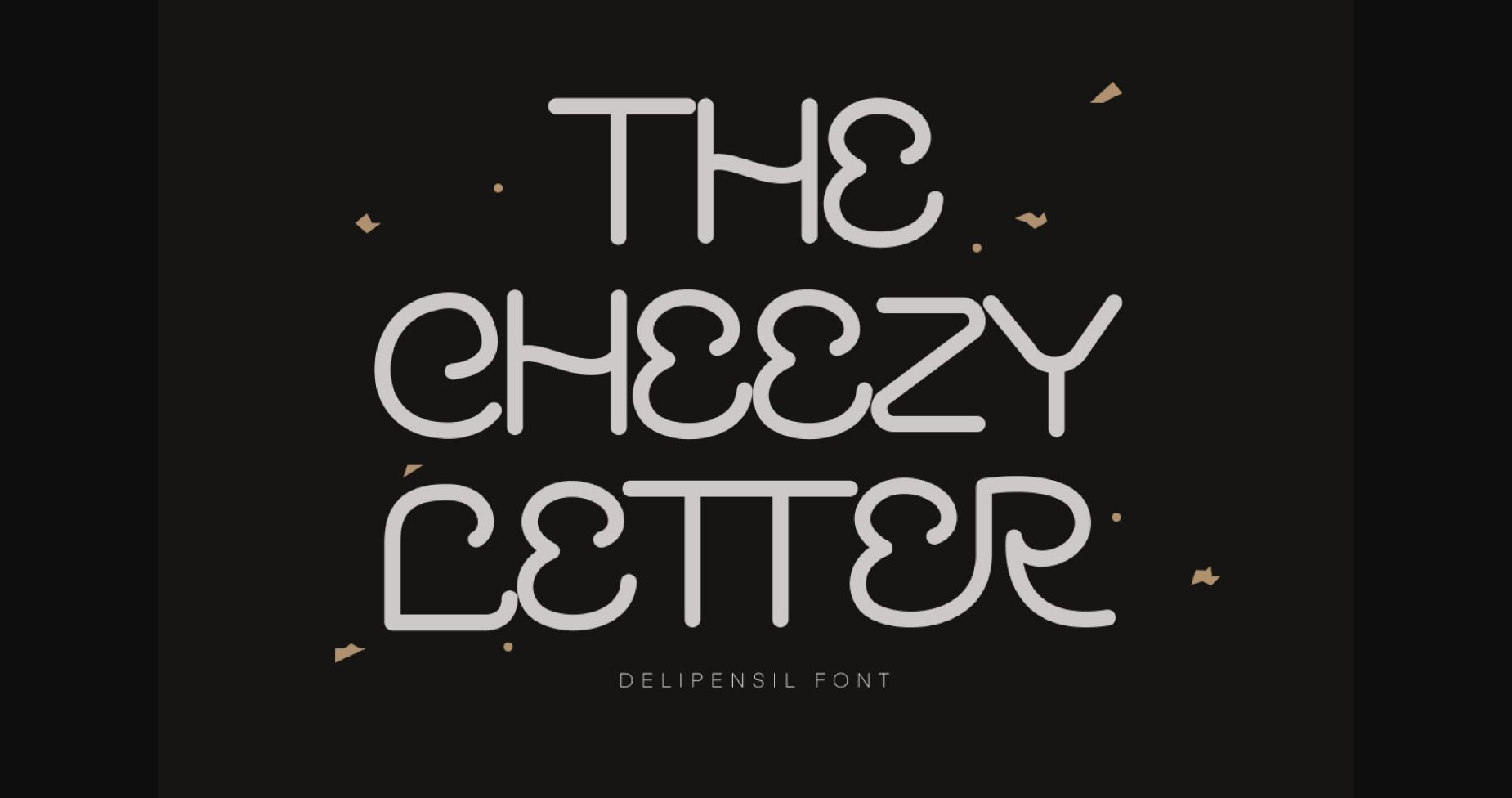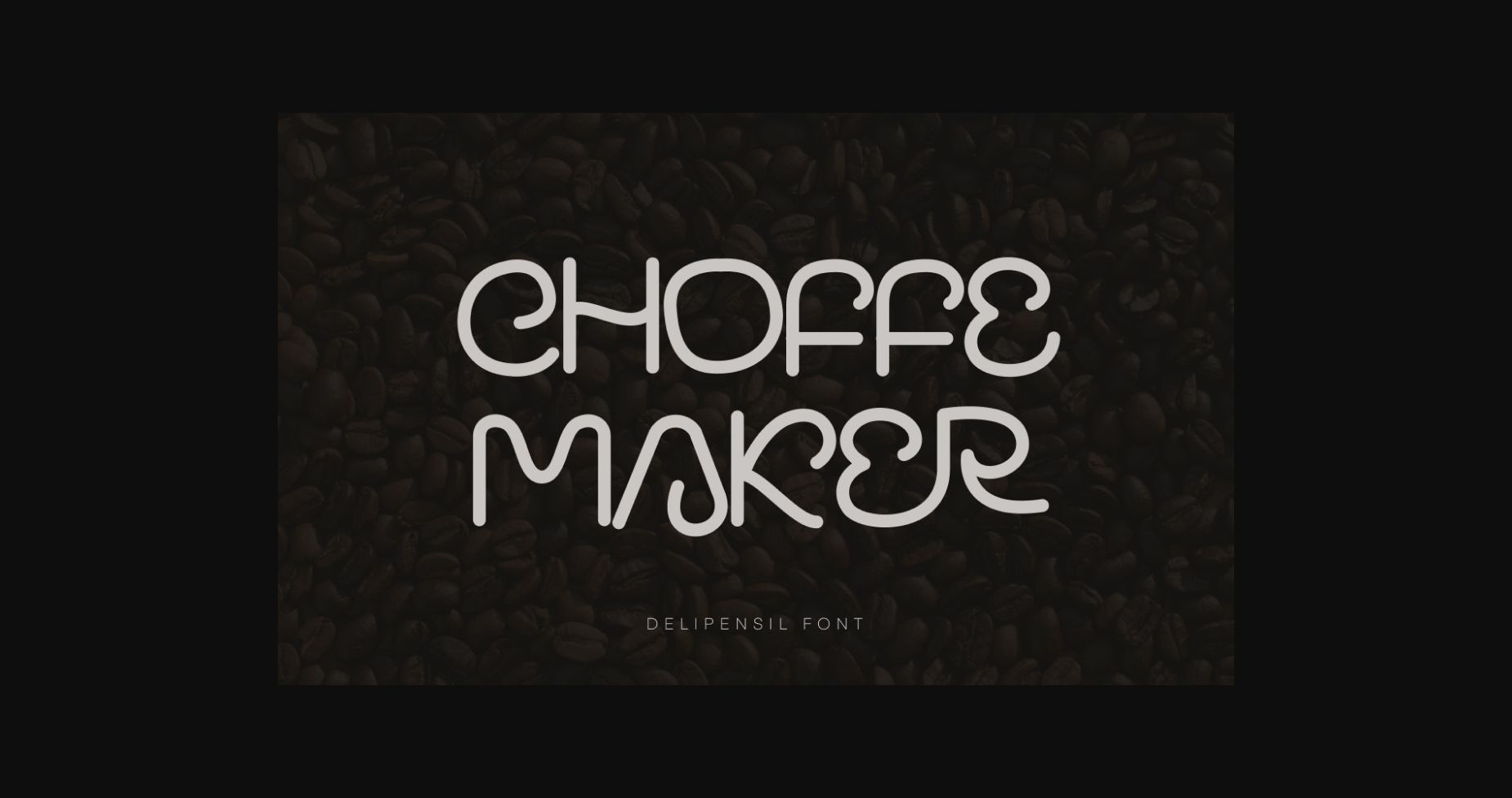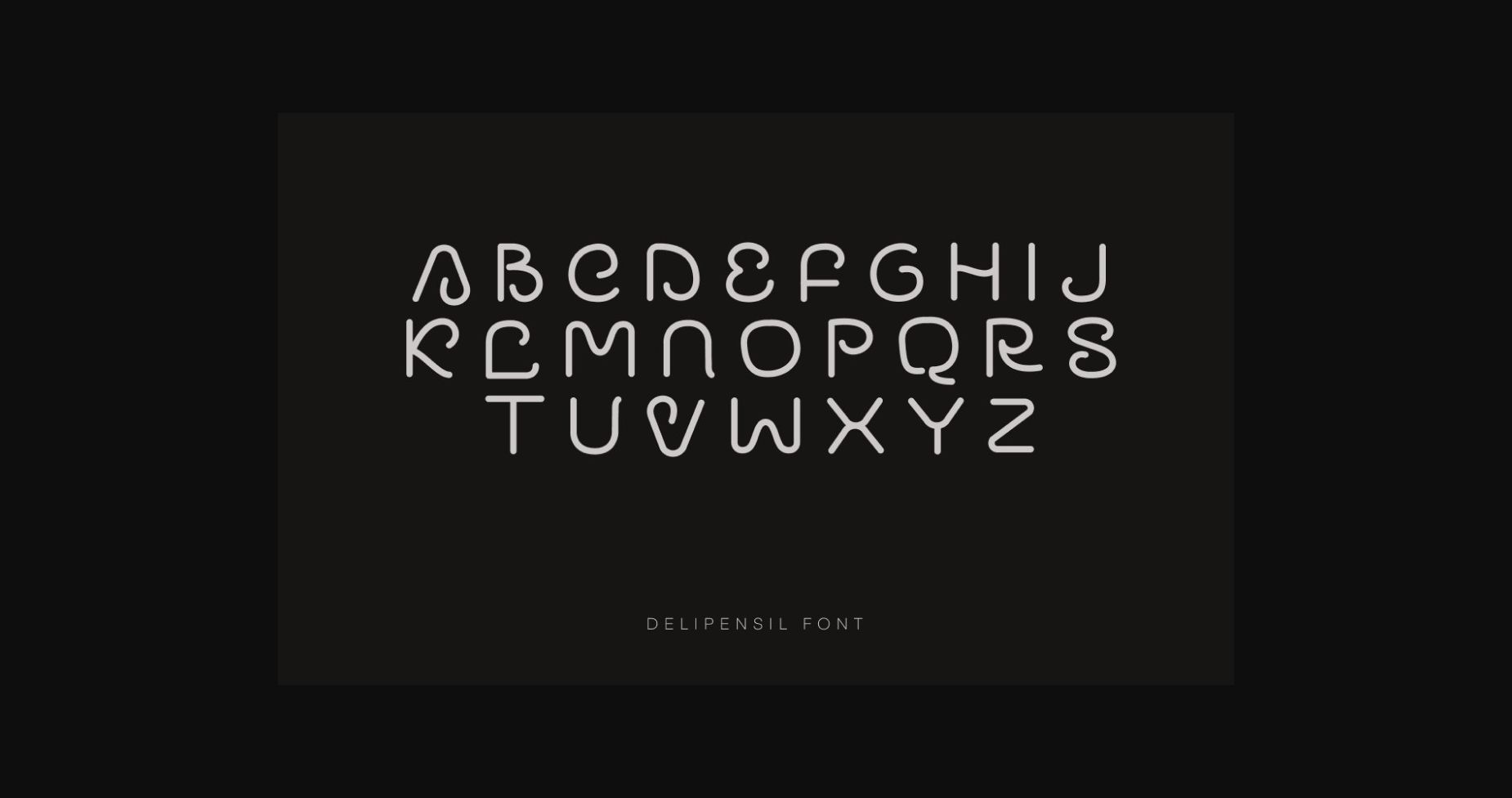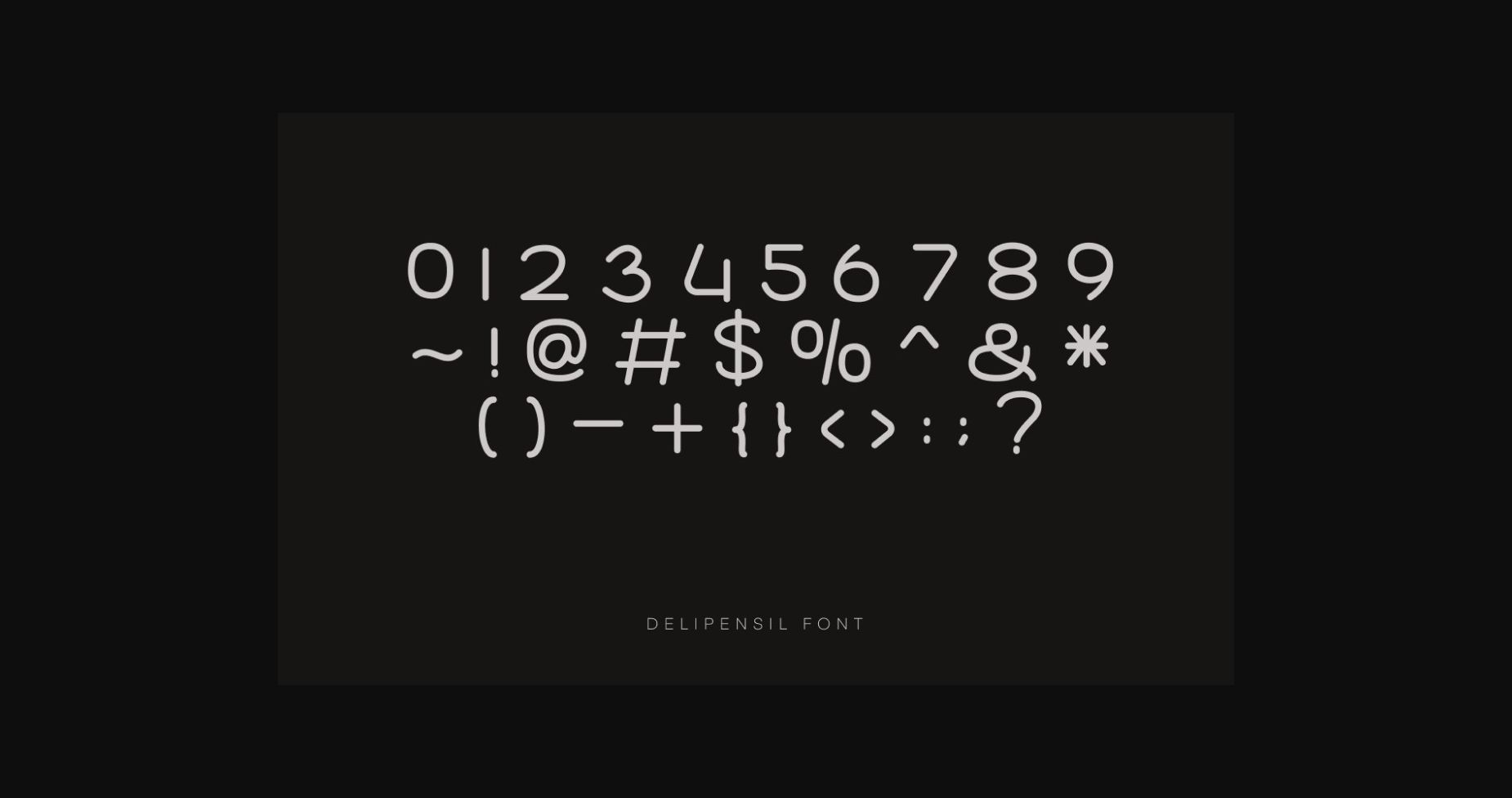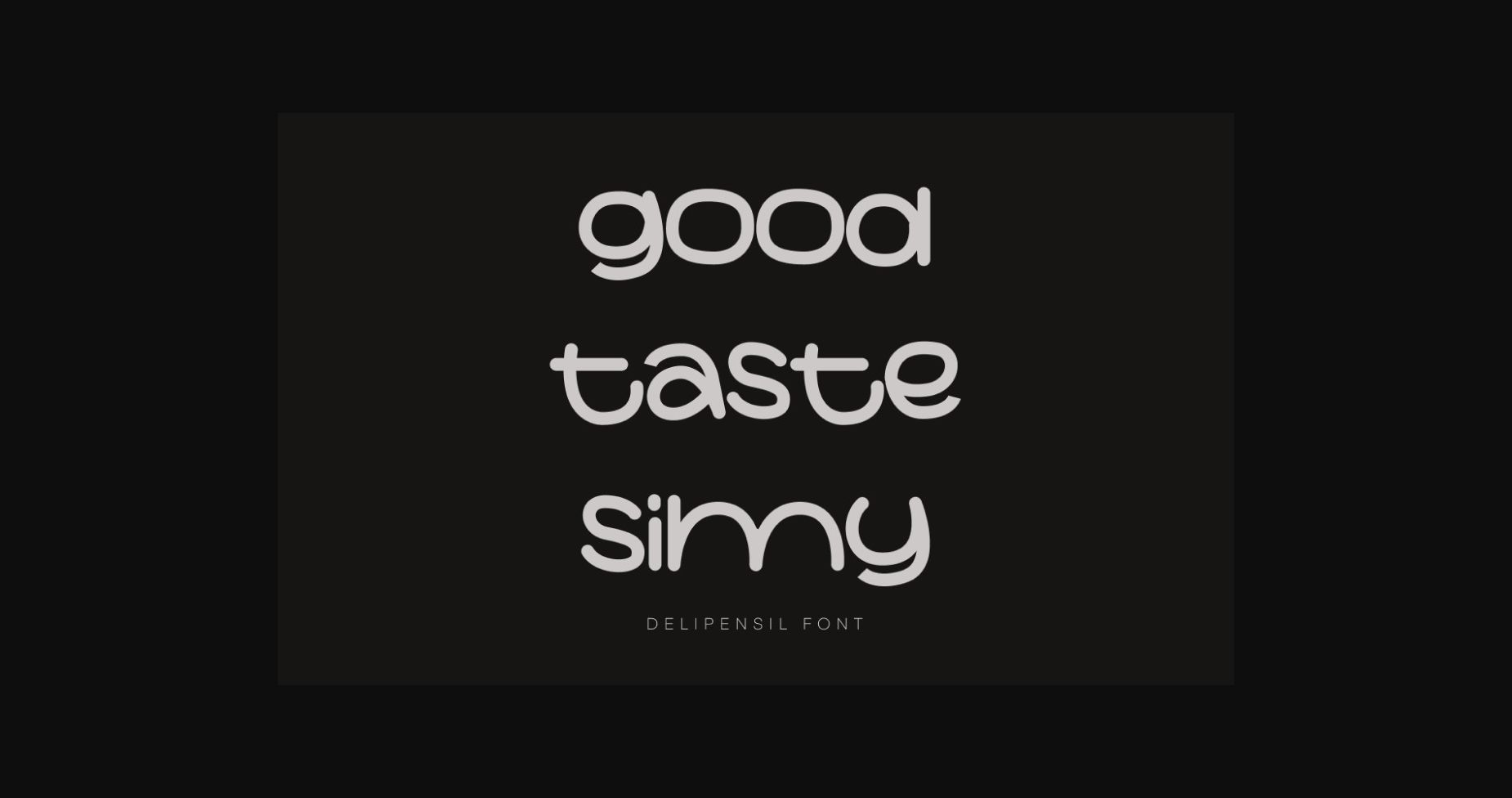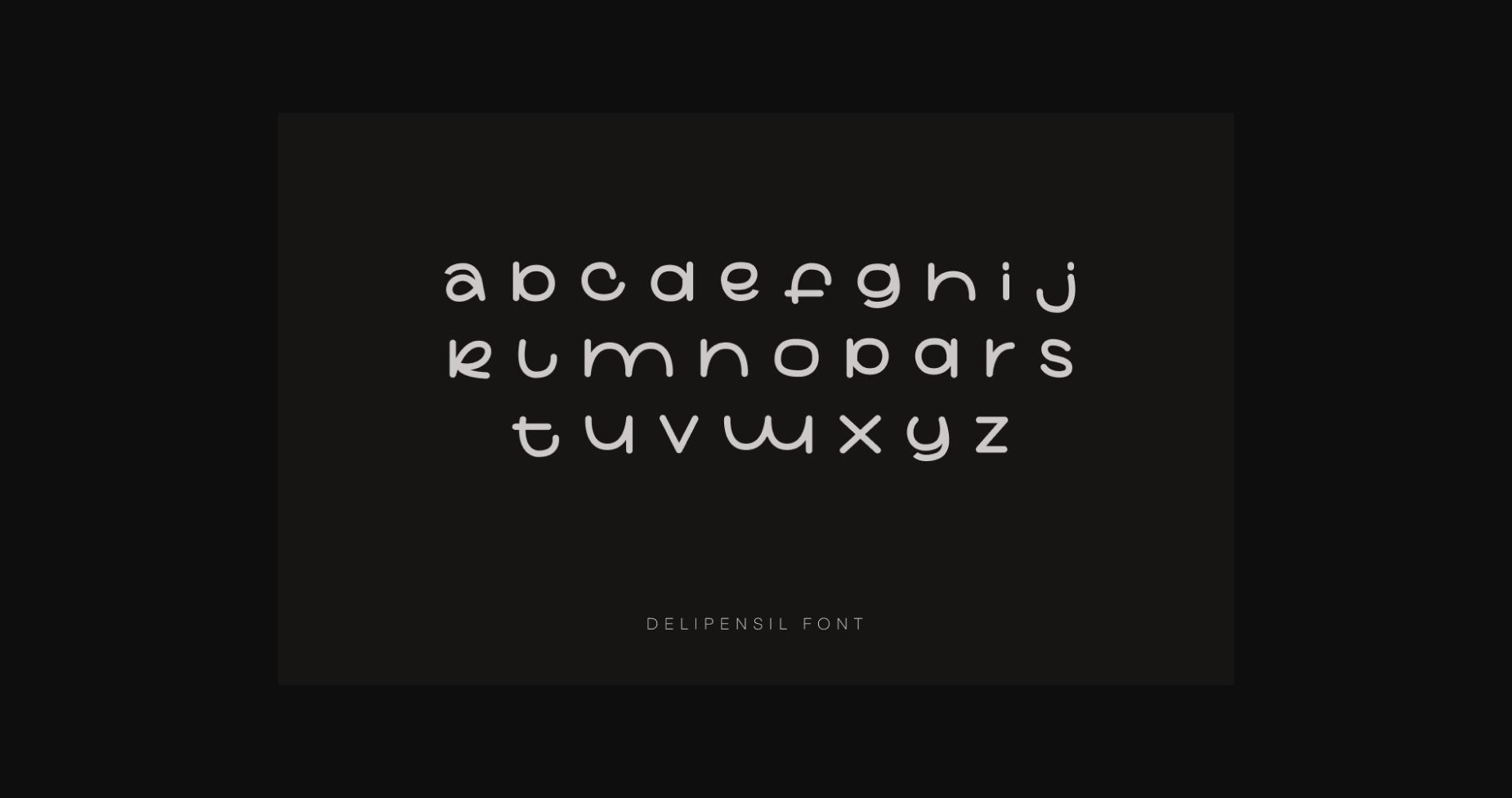
About The Cheezy Letter Font
The Cheezy Letter feels playfully handmade and delivers an incredibly playful handwritten font. Use this display font to add that special playful touch to any design idea you can think of! Masterfully designed to become a true favorite, this font has the potential to bring each of your creative ideas to the highest level!